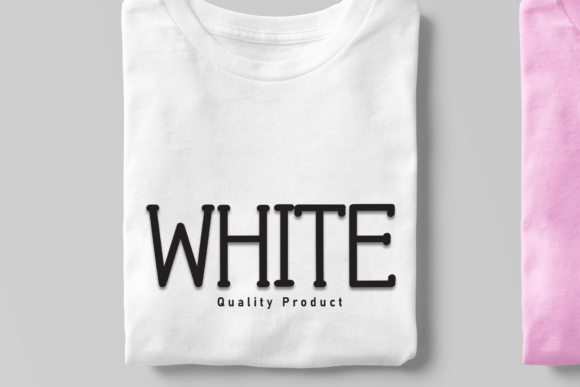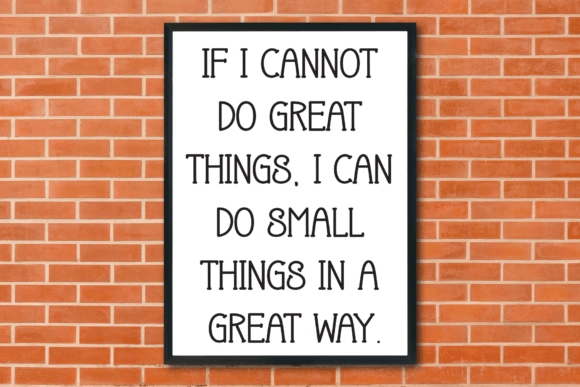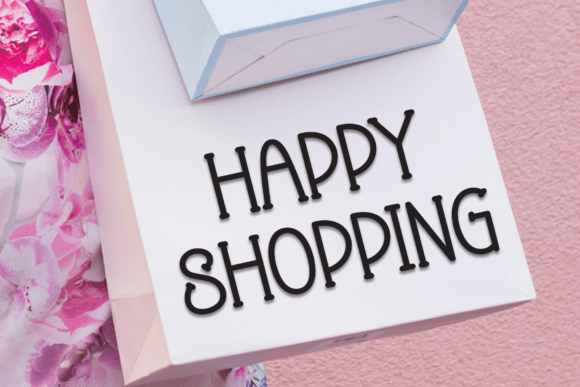
Introduction to Color Water Font
Add a sprinkle of charm to your creative projects with this delightful, handwritten display font.
📌 Product Name Color Water Font
👤 Author Strongkeng Old
Exuding warmth and friendliness, our font breathes life into wedding invitations, greeting cards, and other designs that call for a playful twist Lend a personalized vibe to your creations with the sweet quirkiness of this unassuming calligraphy, making every script a statement of fun and festivity.
Key Features of Color Water Font
Why Choose Color Water Font?